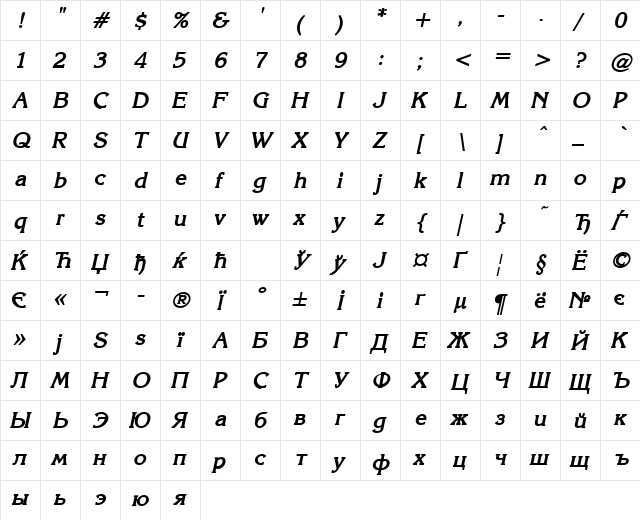
KarinaC BoldItalic
Design Context for KarinaC Typeface
KarinaC offers clean, dependable letterforms without strong stylistic allegiance, making it a practical choice for designers who need flexibility. The slanted form adds forward momentum and visual energy. Its bold stroke weight gives it real presence on the page.